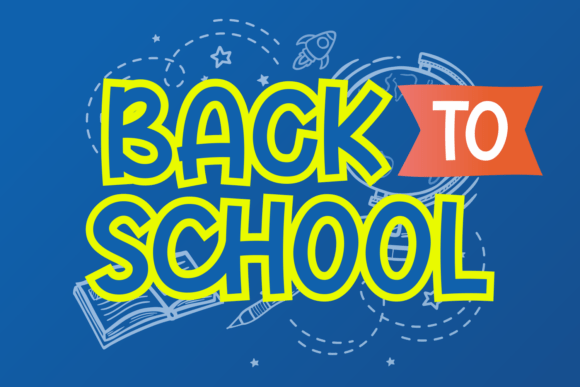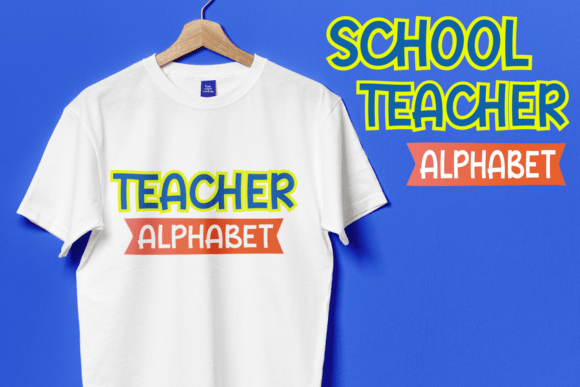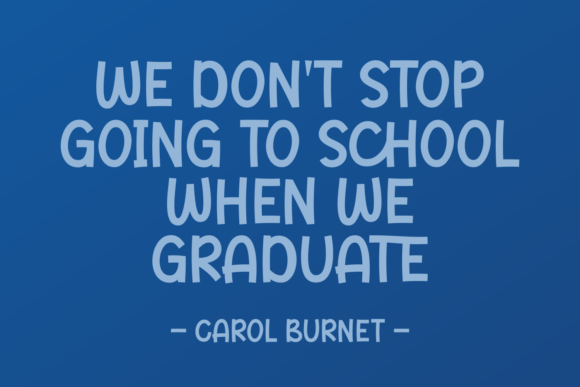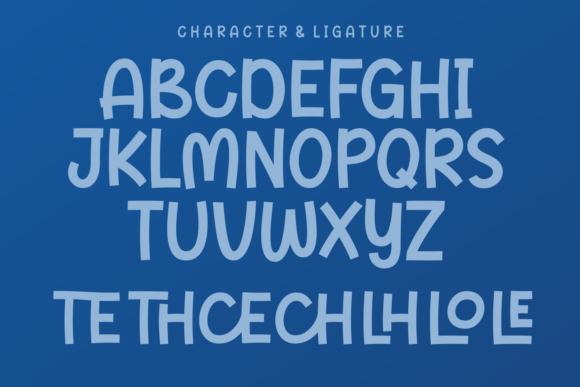
The Chalk Note Font: A Fun and Creative Companion for Designers and Crafters
I’ll never forget the time I was working on a project for a children’s educational product. I had all the design elements ready, but something was missing – the perfect font. That’s when I stumbled upon the Chalk Note font, and it instantly clicked. The playful, hand-crafted charm it exuded was exactly what I needed to bring my design to life.
The Chalk Note font is designed to evoke a sense of fun, creativity, and informality, making it perfect for educational themes, children’s products, craft projects, note-style designs, or playful branding. The pencil icon and the name “Chalk Note” make it ideal for school-related materials, DIY projects, or anything that wants a hand-crafted charm.
- ✨ The font’s playful and whimsical design makes it perfect for creative projects.
- ✅ It’s highly versatile and can be used for a wide range of applications, from educational materials to craft projects.
- 🎉 The font’s hand-crafted charm adds a personal touch to any design.
- 📚 The inclusion of a pencil icon and the name “Chalk Note” make it a great fit for school-related materials.
⚠️ While the font is highly versatile, it may not be the best fit for formal or professional designs. It’s also worth noting that some users may find the font’s playful design too informal for certain projects.
🤔 One thing to keep in mind is that the font’s OpenType features and glyphs may not work seamlessly across all platforms. However, with a little creativity and experimentation, you can still achieve amazing results.
The Chalk Note font was designed with the intention of creating a playful and creative font that would evoke a sense of fun and informality. The designer wanted to create a font that would be perfect for educational themes, children’s products, and craft projects. The result is a font that’s both versatile and charming.
Q: What is the Chalk Note font best used for?
A: The Chalk Note font is best used for educational themes, children’s products, craft projects, note-style designs, or playful branding.
Q: Is the Chalk Note font suitable for formal designs?
A: No, the Chalk Note font is not suitable for formal designs. It’s best used for creative and playful projects.